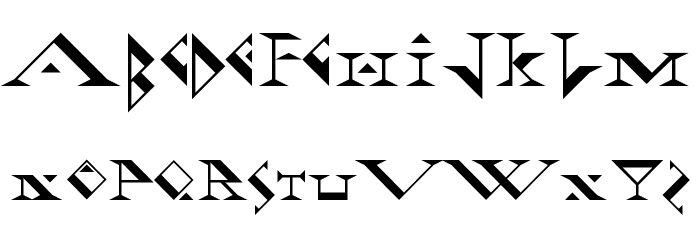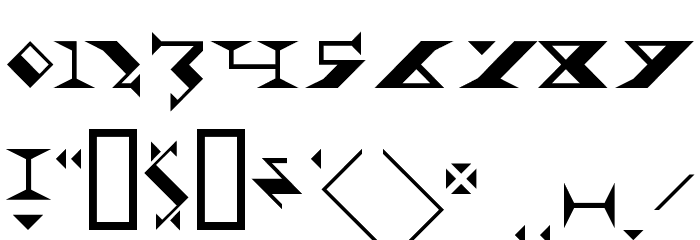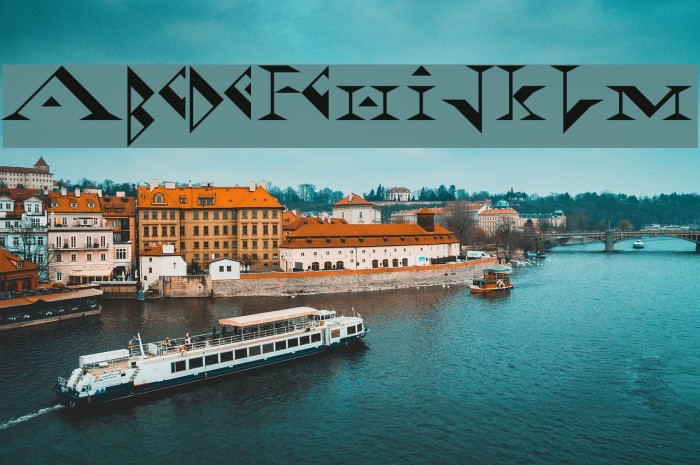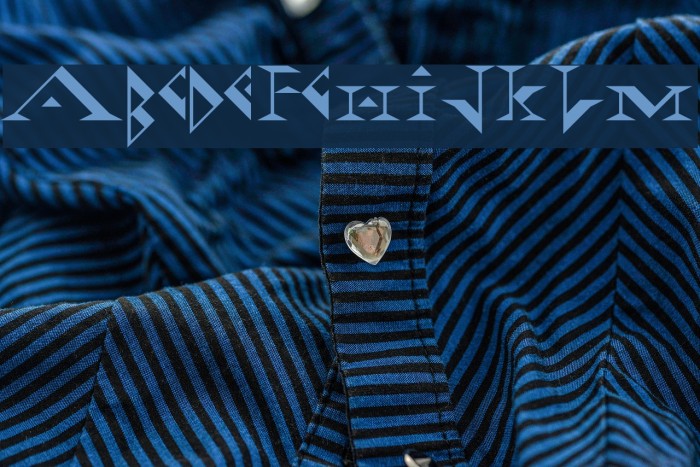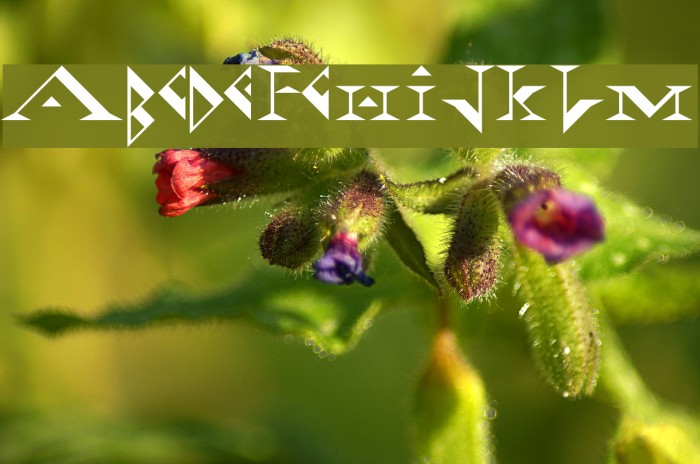
Fadgod Font
This font features a highly decorative and geometric style, characterized by sharp angles and bold, triangular shapes. The uppercase letters are particularly striking, with intricate cutouts and a futuristic appearance. The lowercase letters maintain the angular theme, offering a cohesive look throughout the alphabet. Numbers and special characters are equally stylized, making them suitable for eye-catching designs. The font's unique aesthetic makes it ideal for projects that require a modern and edgy feel.
- Proposed Projects: Ideal for sci-fi themed designs, video game titles, posters, and branding that requires a modern and edgy look.